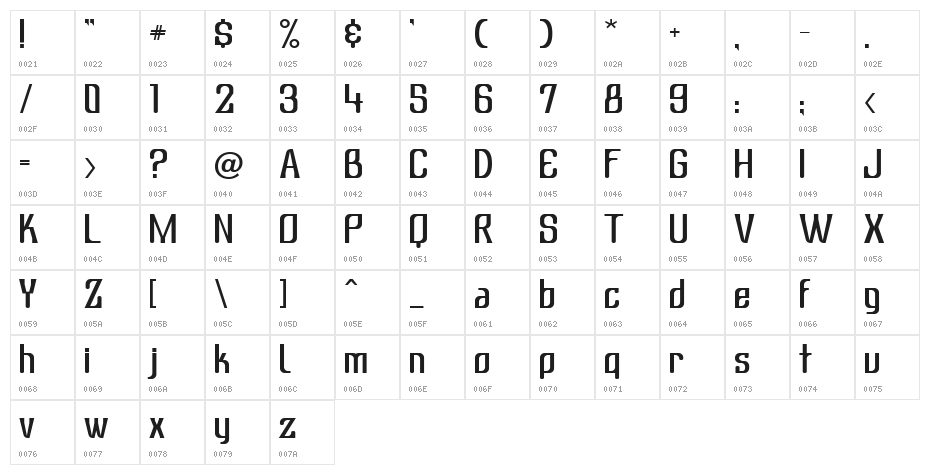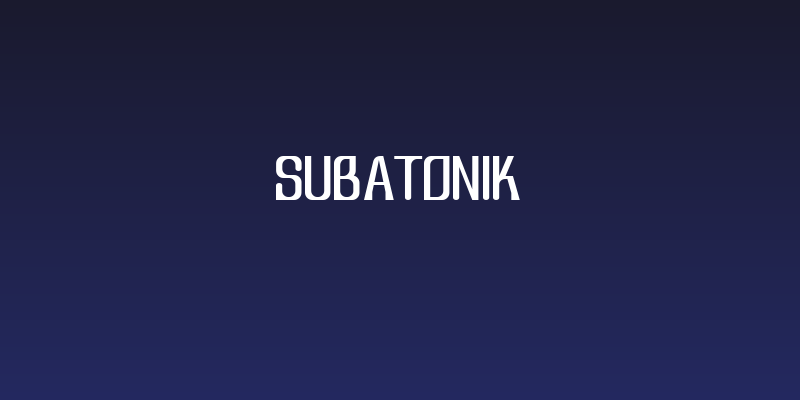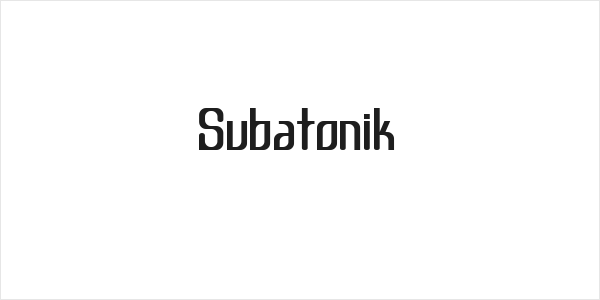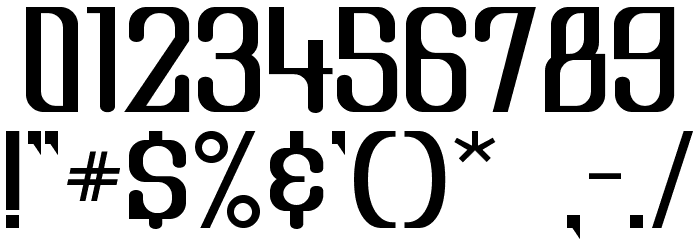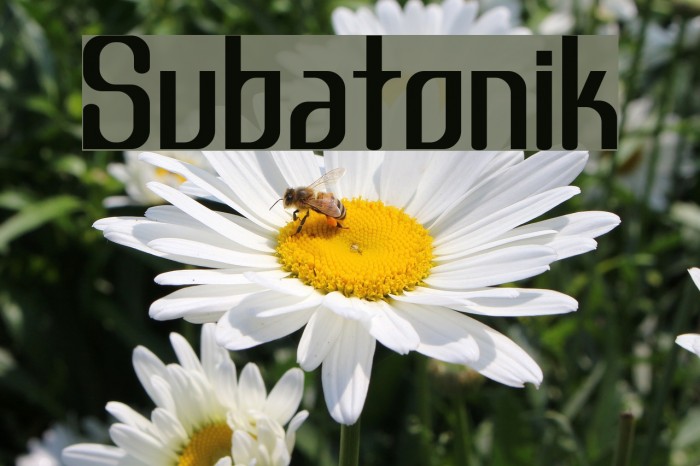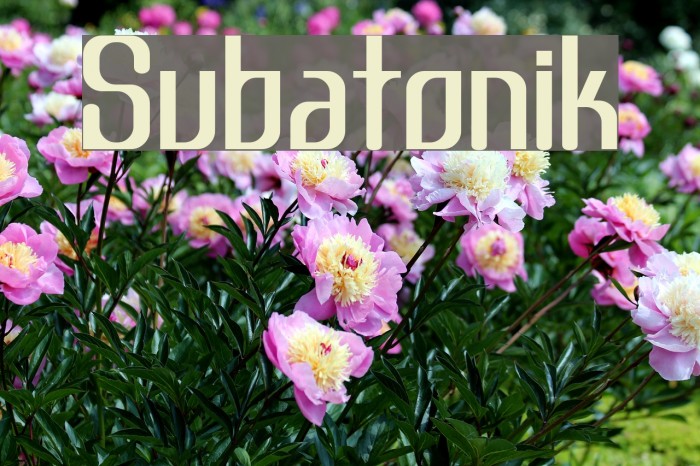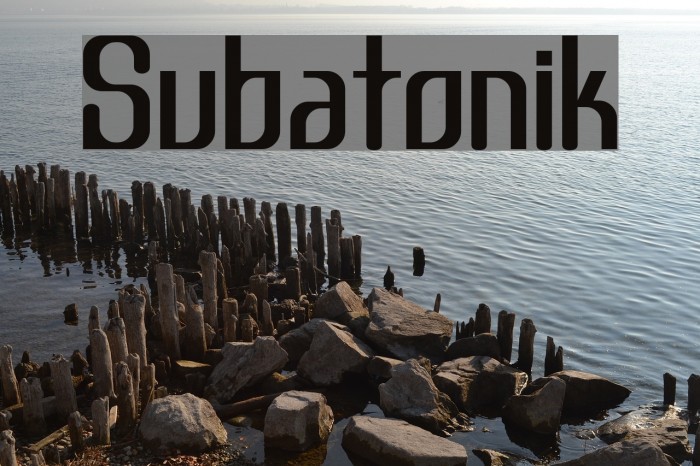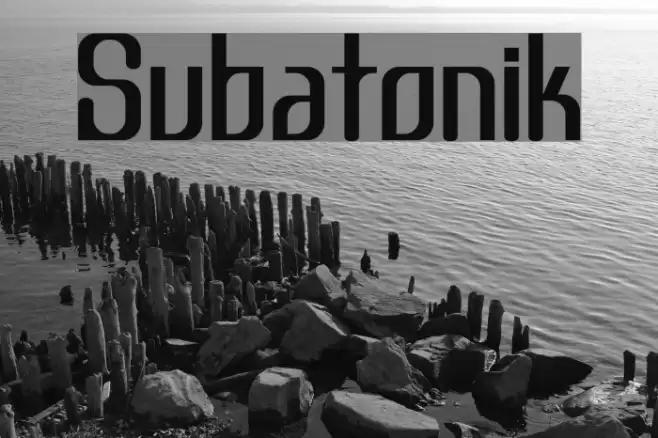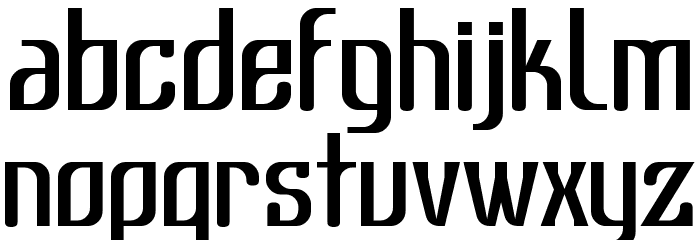
Subatonik Font
Subatonik Description
This font features a modern and geometric design with a distinctively bold and structured appearance. The characters are crafted with a uniform stroke width, giving it a clean and cohesive look. The uppercase letters are tall and narrow, while the lowercase letters maintain a consistent height, providing a balanced visual flow. The numerals are designed to match the overall style, ensuring readability and aesthetic harmony. Special characters are included, each designed to complement the font's overall geometric theme. This font is versatile, suitable for a variety of design projects that require a contemporary and professional touch.
| Proposed Projects | Ideal for branding, advertising, posters, and digital media that require a modern and professional look. |